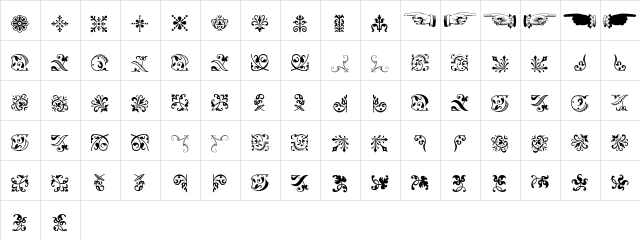
Baroque Ornaments Regular
Design Context for Baroque Ornaments Typeface
Baroque Ornaments brings ornamental detail and strong personality to headlines and identities, where visual impact matters more than quiet functionality.
Font Pairing: Pair with a clean neutral sans-serif for body copy to let Baroque Ornaments's character lead without overwhelming the composition.
Pro Tip: Use Baroque Ornaments exclusively at display sizes — it was designed to be seen, not read at length. Let a neutral companion handle body copy.